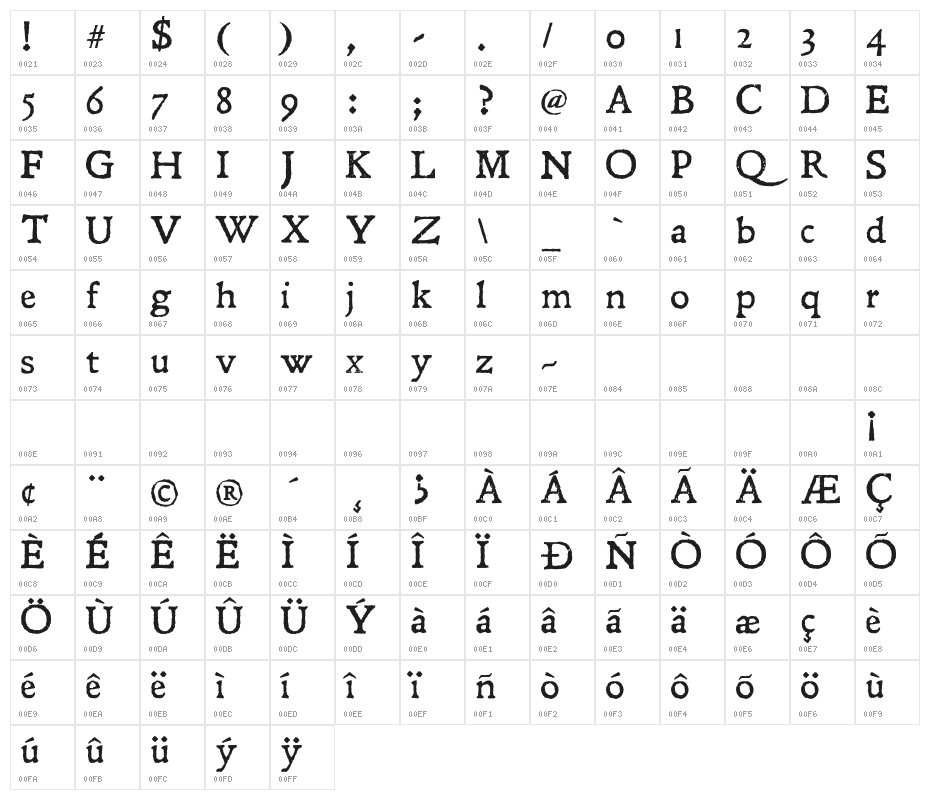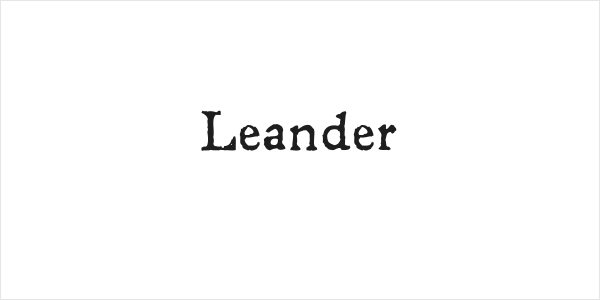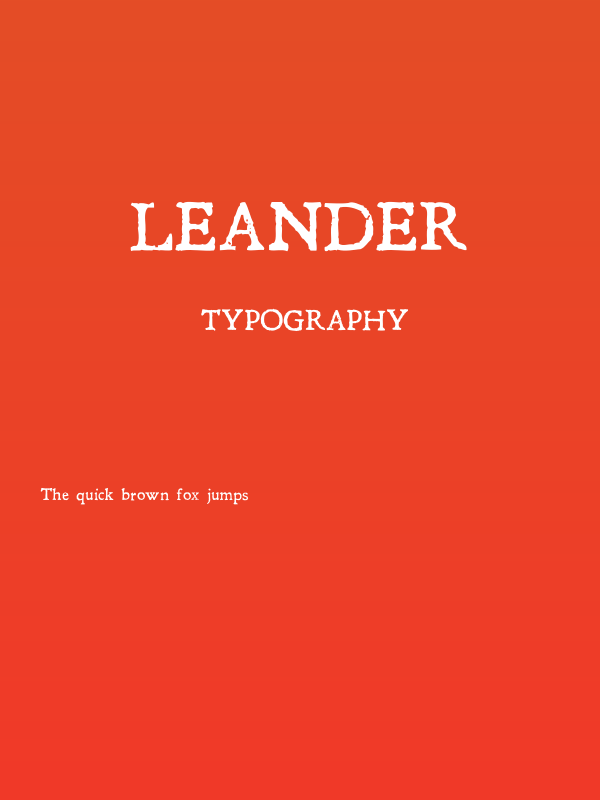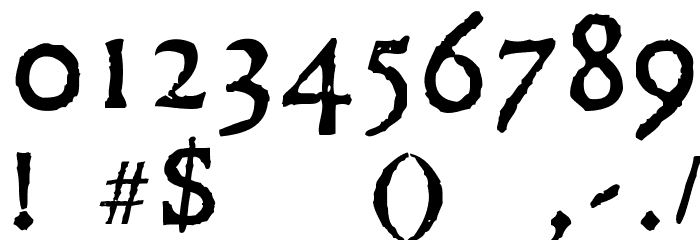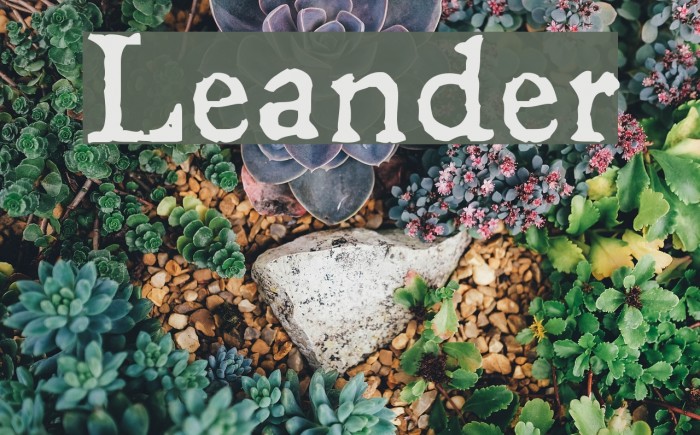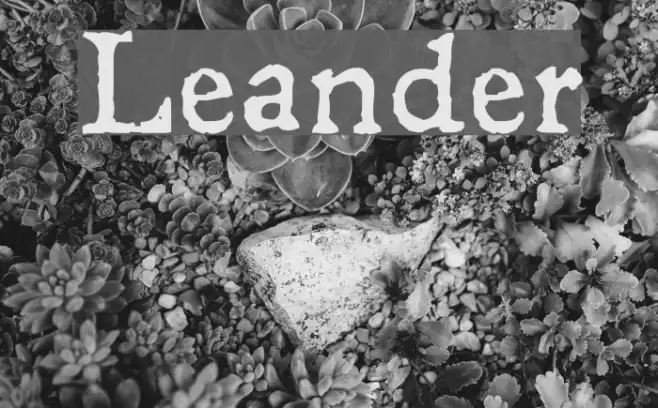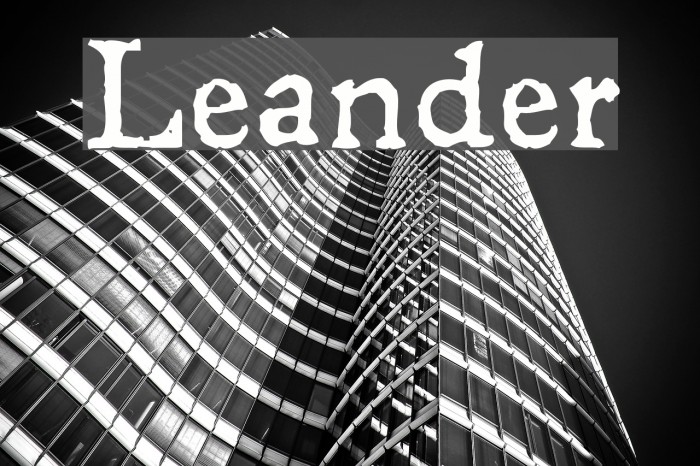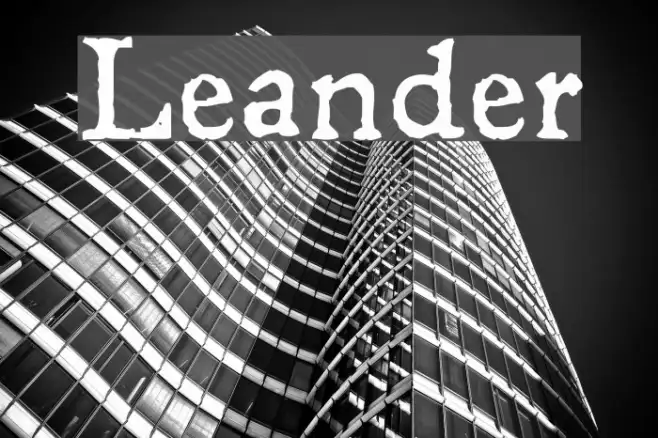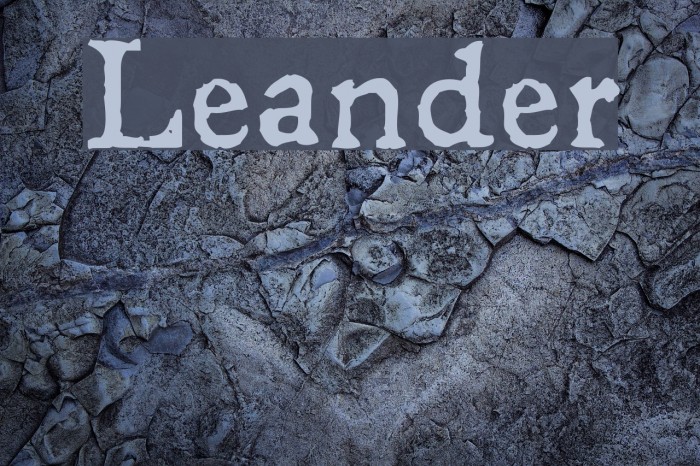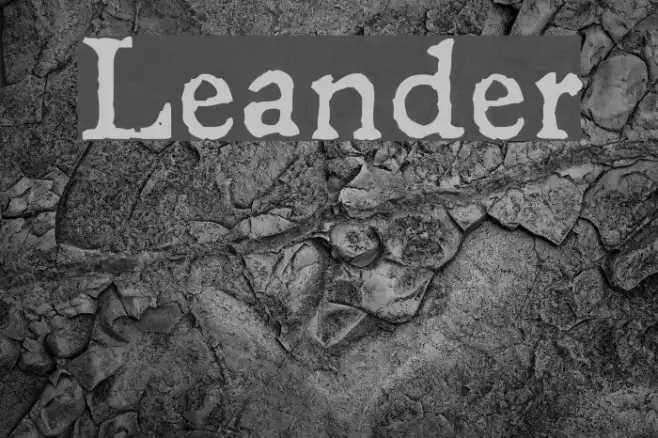
Leander Font
Leander Description
This font exudes a vintage and rustic charm, characterized by its rough, hand-drawn appearance. The letters have an uneven texture, giving them a distressed and organic feel. The uppercase and lowercase characters maintain a consistent style, with slightly exaggerated serifs and varying stroke widths that add to the font's unique personality. The numerals and special characters follow the same aesthetic, ensuring a cohesive look across all glyphs. This font is perfect for projects that require a touch of antiquity and handcrafted appeal.
| Proposed Projects | Ideal for vintage-themed designs, rustic branding, handmade product packaging, and artistic posters. |